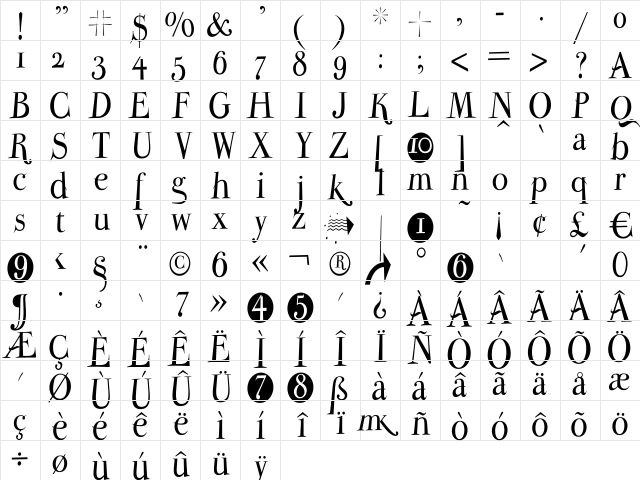
ParmaPetitNormal Regular
Design Context for ParmaPetitNormal
ParmaPetitNormal is a composed and adaptable typeface that performs quietly and consistently across a wide range of design contexts.
Pro Tip: Use ParmaPetitNormal in both headline and body roles to test its range before committing to a single application.